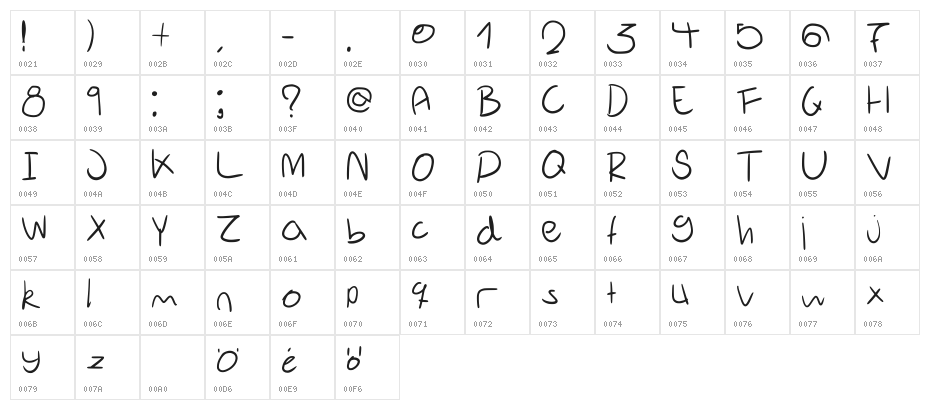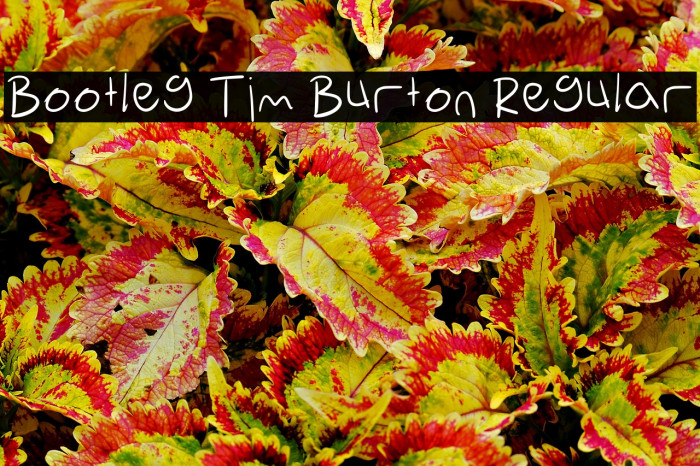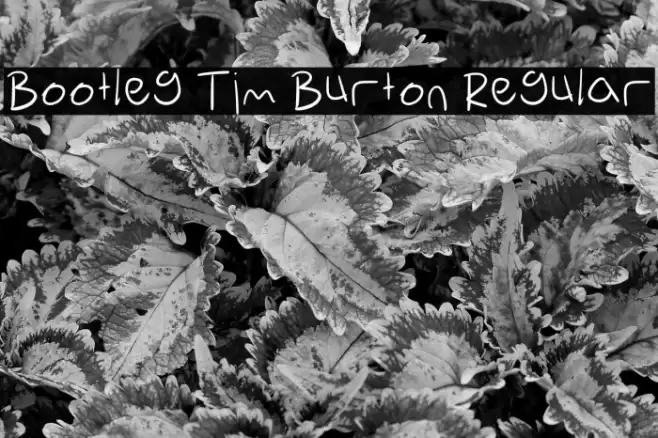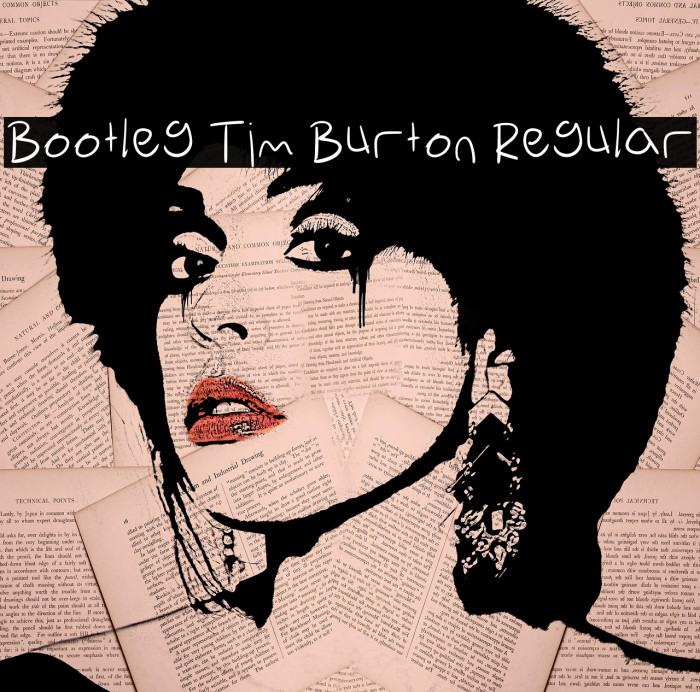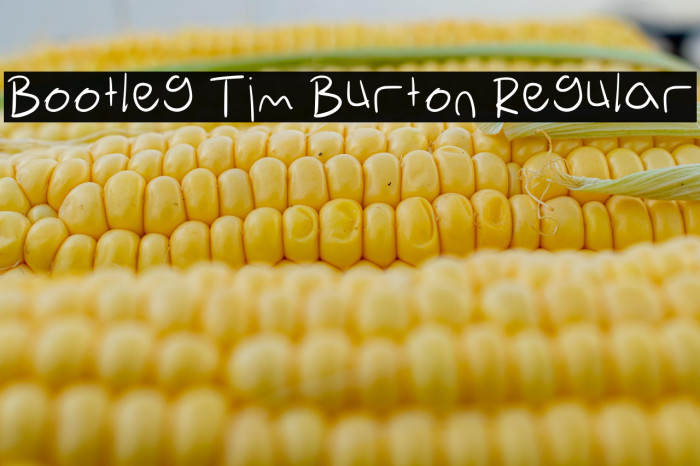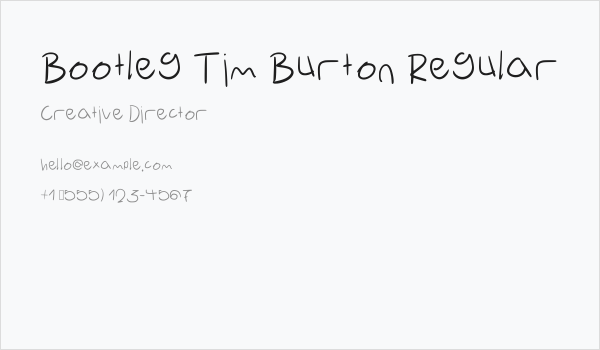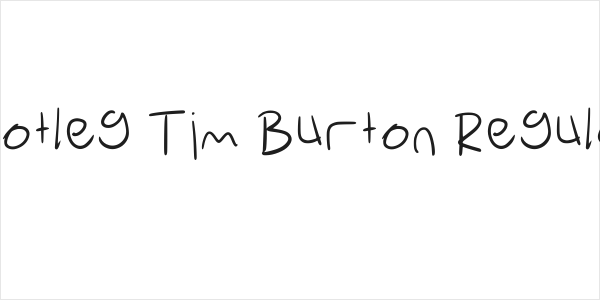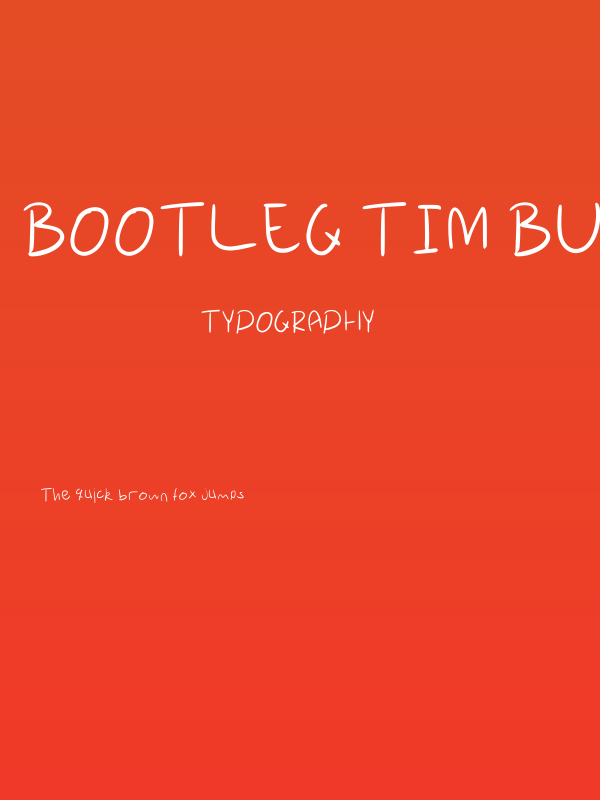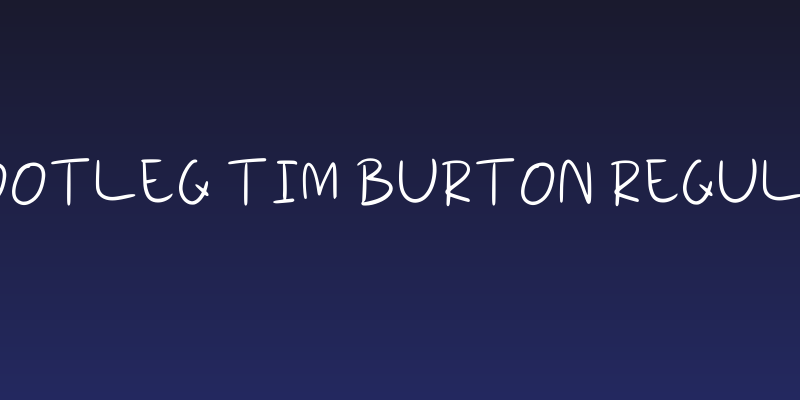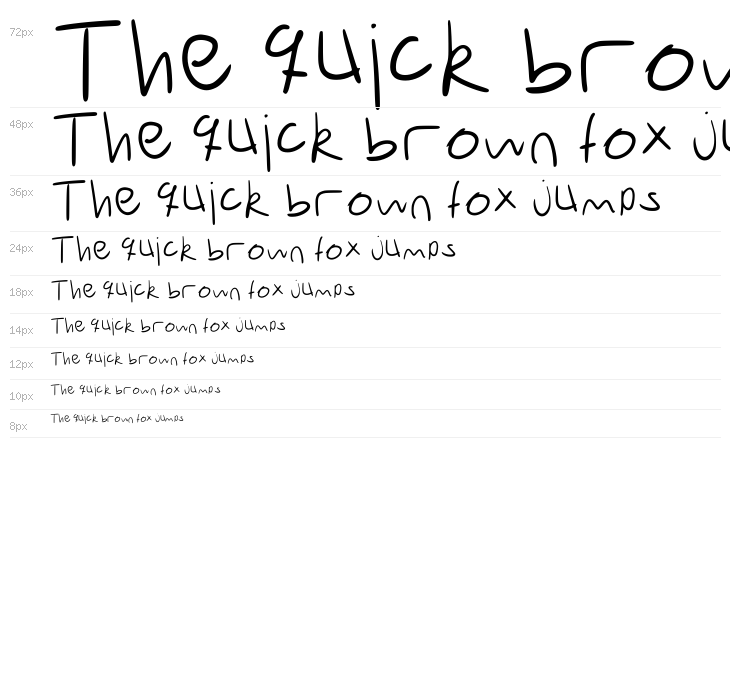
Bootleg Tim Burton Regular Font
Bootleg Tim Burton Regular Description
This playful and whimsical font features irregular, hand-drawn characters that evoke a sense of creativity and imagination. The letters have a slightly uneven baseline and varying stroke widths, giving them a lively and dynamic appearance. The font's quirky style is reminiscent of a handwritten script, with a touch of eccentricity that makes it stand out. The uppercase and lowercase letters maintain a consistent style, while the numerals and special characters complement the overall design. This font is perfect for projects that require a fun and artistic touch.
| Proposed Projects | Ideal for children's books, creative posters, playful branding, and artistic invitations. |